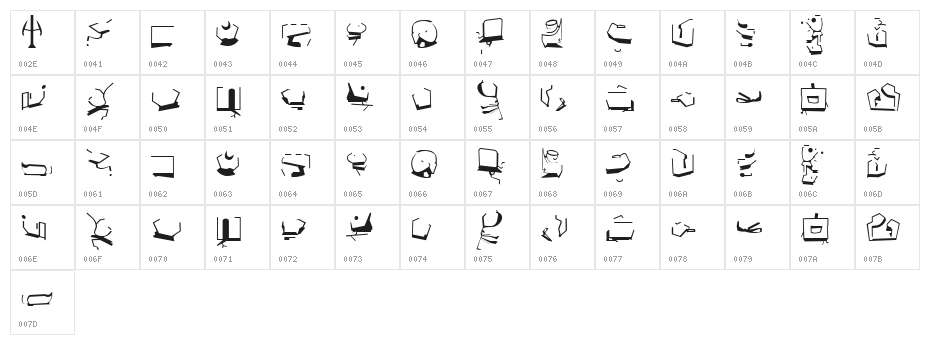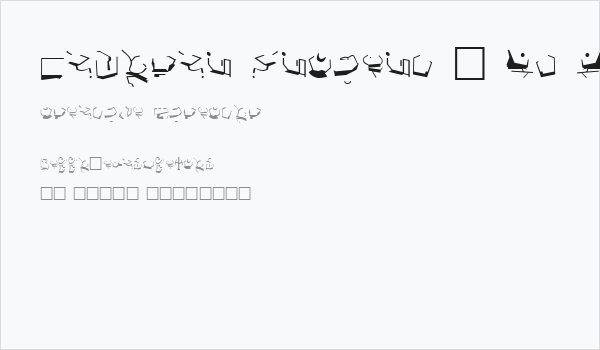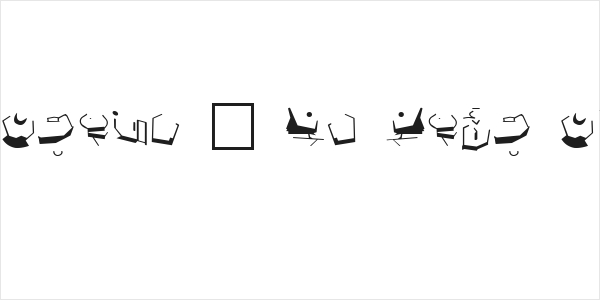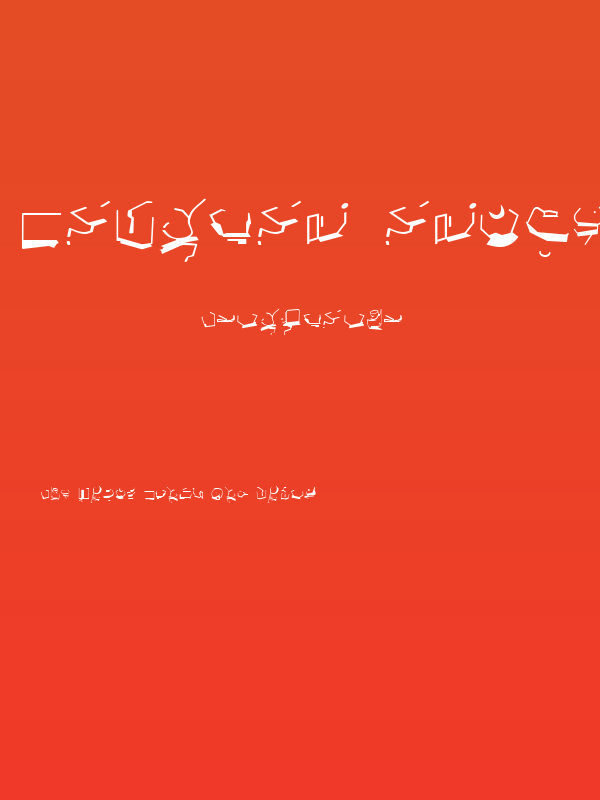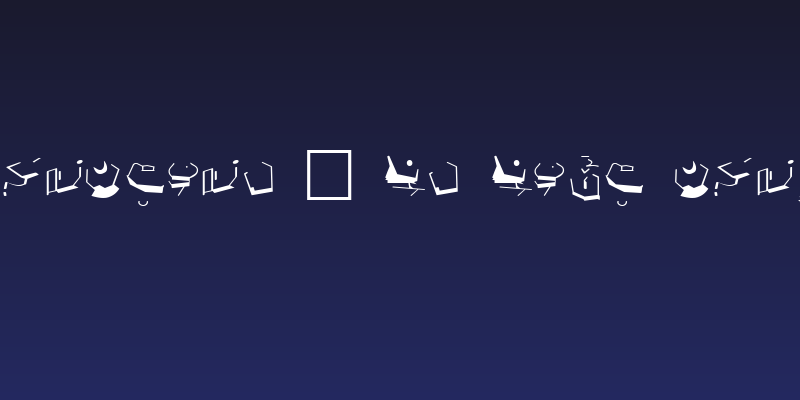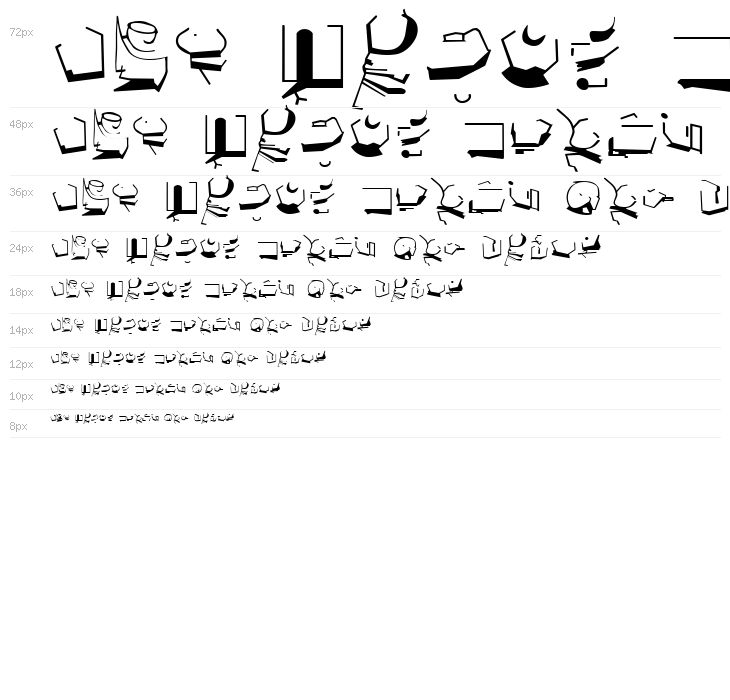
Bajoran Ancient - ST semi canon based Font
Bajoran Ancient - ST semi canon based Description
This font features a highly stylized and abstract design, reminiscent of ancient or alien scripts. Each character is composed of unique geometric shapes and lines, creating a sense of mystery and otherworldliness. The characters vary in complexity, with some incorporating curves and dots, while others are more angular and rigid. The overall appearance is decorative and unconventional, making it suitable for creative and thematic projects. The font does not adhere to traditional alphabetic forms, instead offering a visual language that suggests a narrative or cultural significance.
| Use Case | Logos, Thematic designs, Creative projects |
| Proposed Projects | Ideal for science fiction themes, fantasy games, or any project requiring a mysterious or ancient script. |